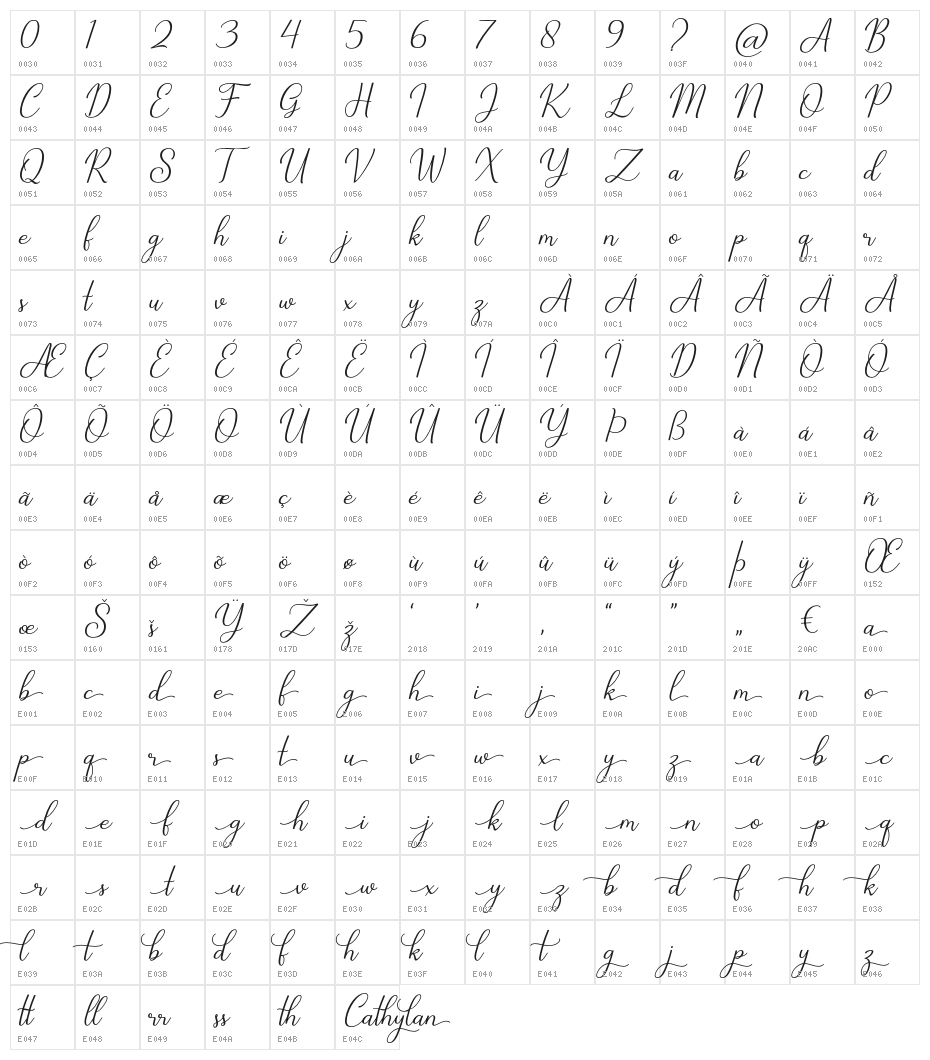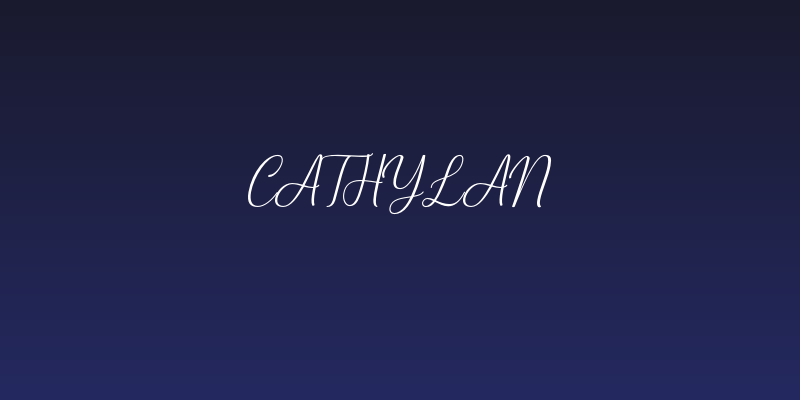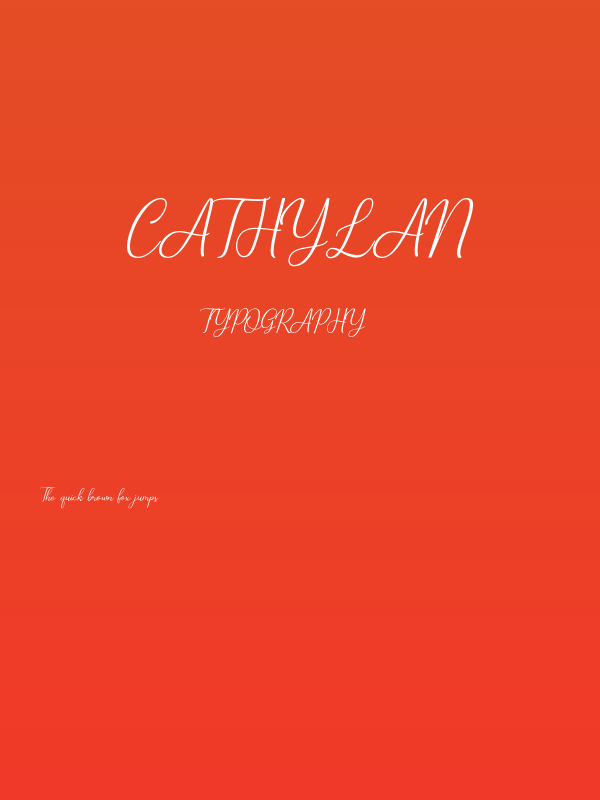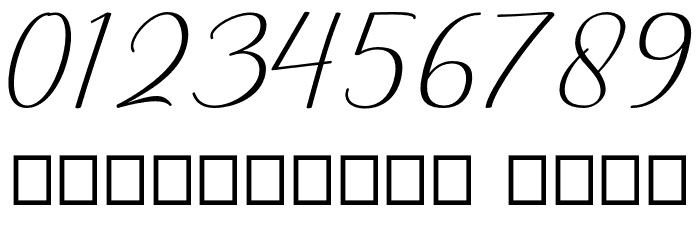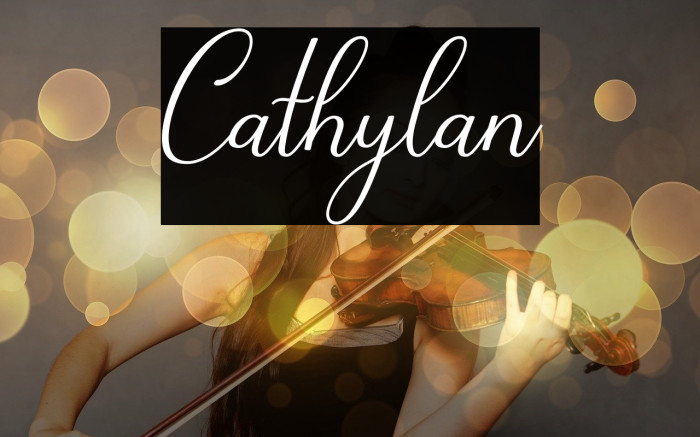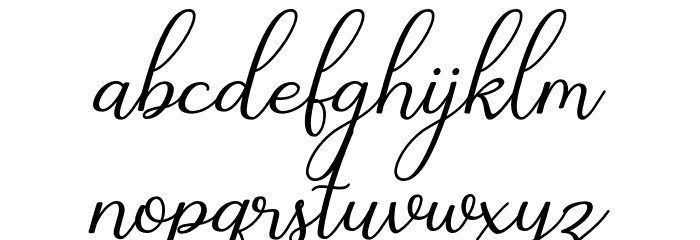
Cathylan Font
Cathylan Description
This elegant script font features flowing, cursive letterforms with a sophisticated and graceful appearance. The uppercase letters are particularly ornate, with sweeping curves and loops that give a sense of fluidity and movement. The lowercase letters maintain a consistent style, complementing the uppercase with their own subtle flourishes. The numbers are designed to match the overall aesthetic, offering a cohesive look across all characters. This font is ideal for projects that require a touch of elegance and refinement, such as wedding invitations, formal event programs, or luxury branding. The character spacing is balanced, ensuring readability while maintaining the decorative style.
| Use Case | Headlines, Invitations, Branding |
| Proposed Projects | Wedding invitations, formal event programs, luxury branding, elegant packaging. |